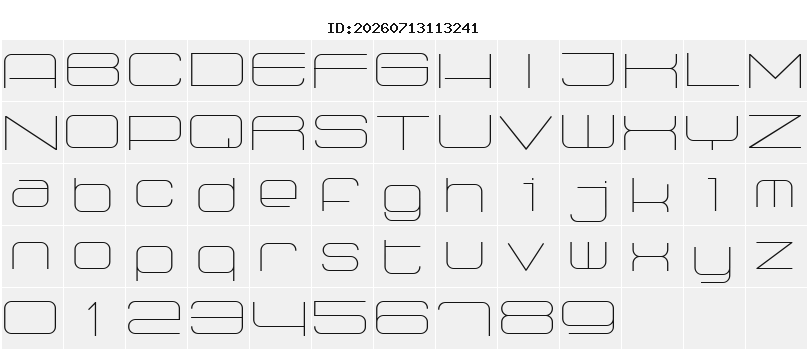
• Font Name: Radio 187.5
• Designer: Måns Grebäck
About Radio 187.5.ttf
Radio 187.5.ttf is a modern, elegant sans-serif font designed for ultimate readability and visual harmony. Perfect for branding, headlines, web design, and print materials.